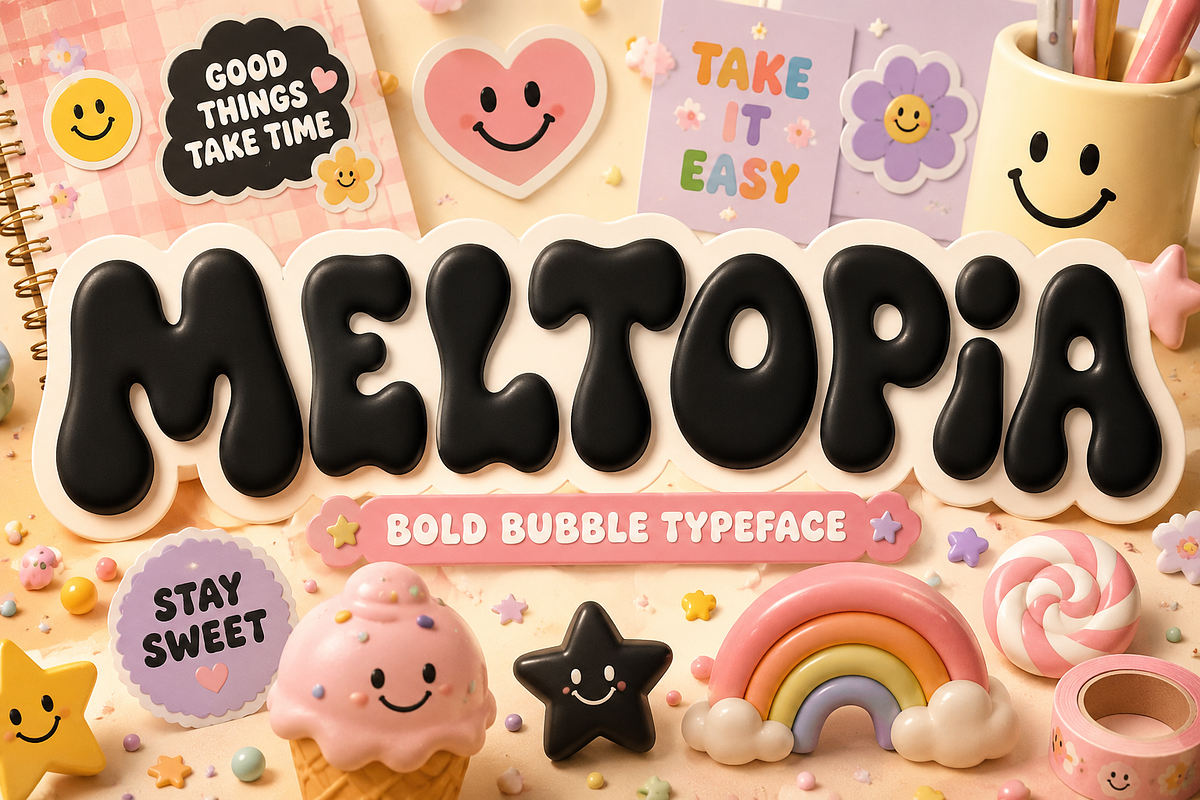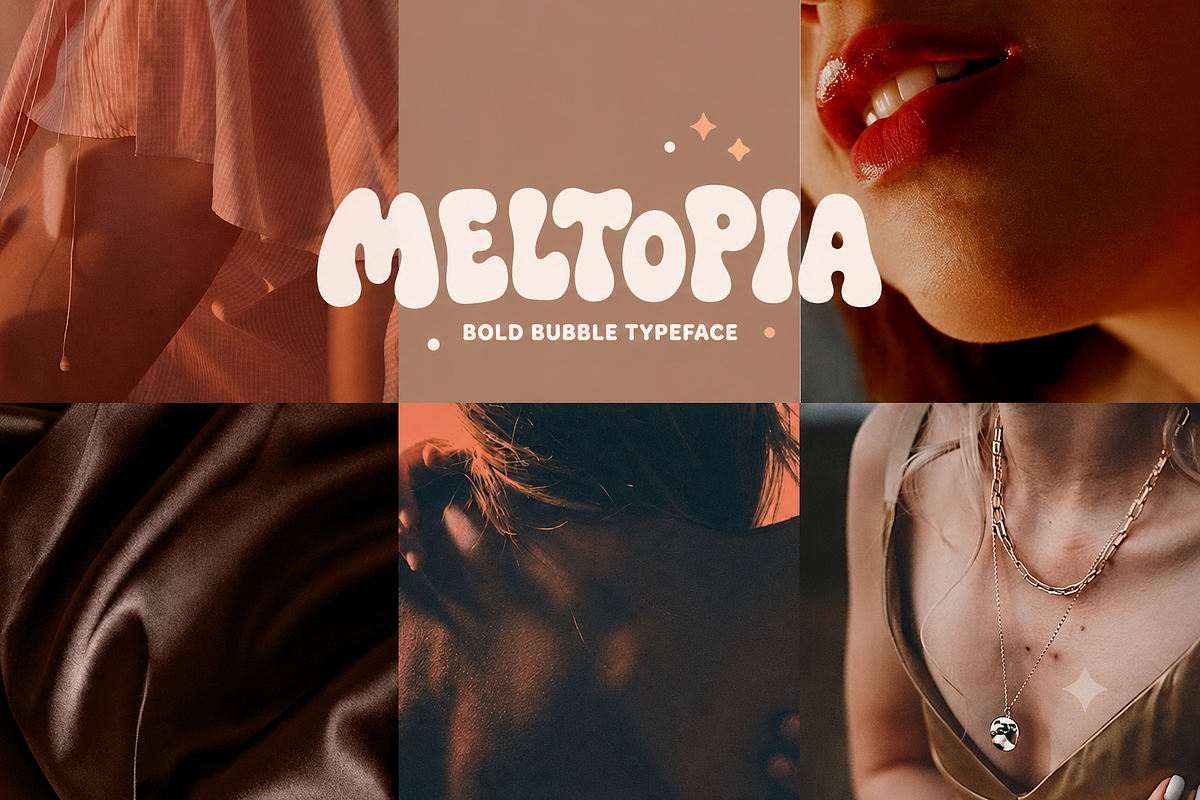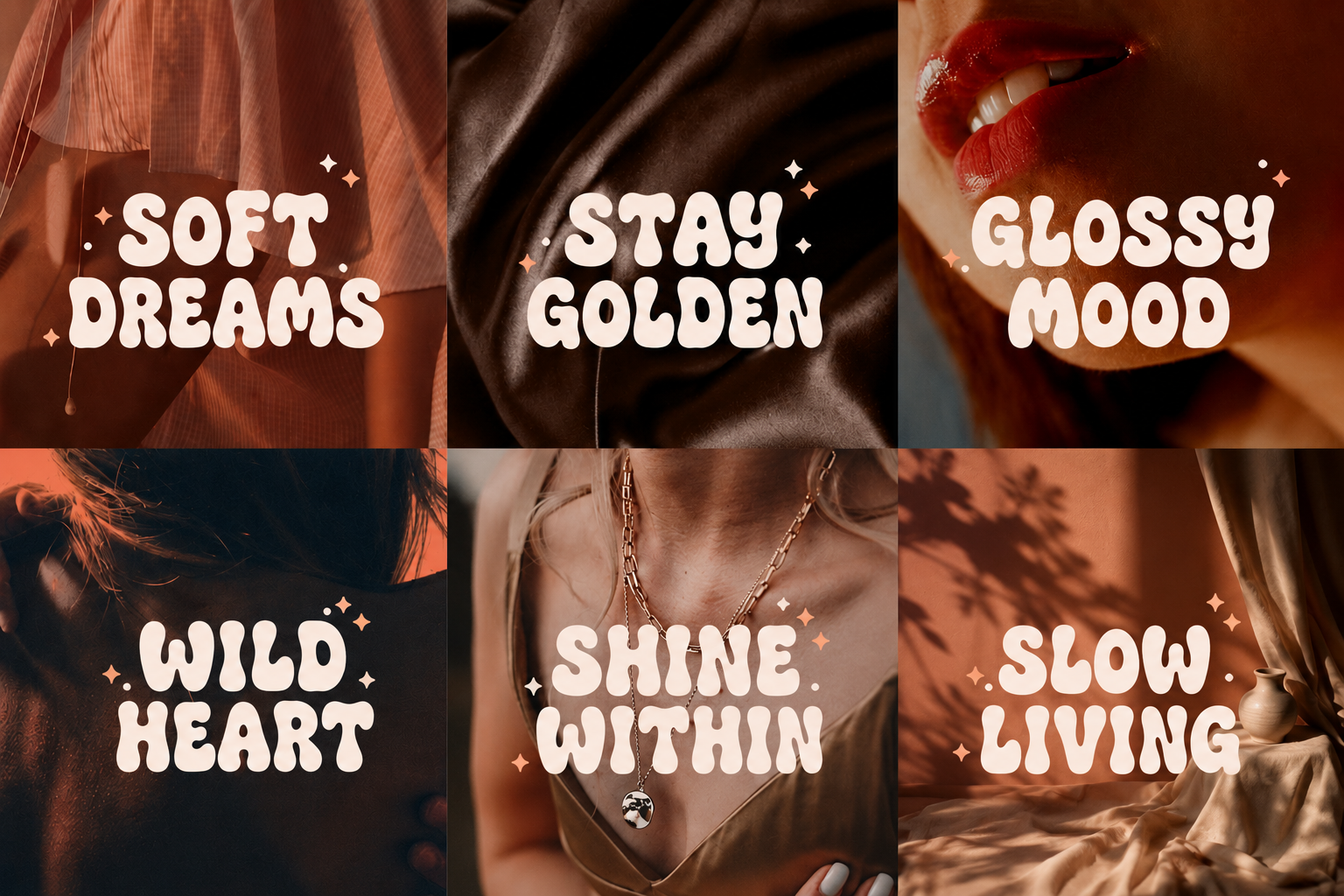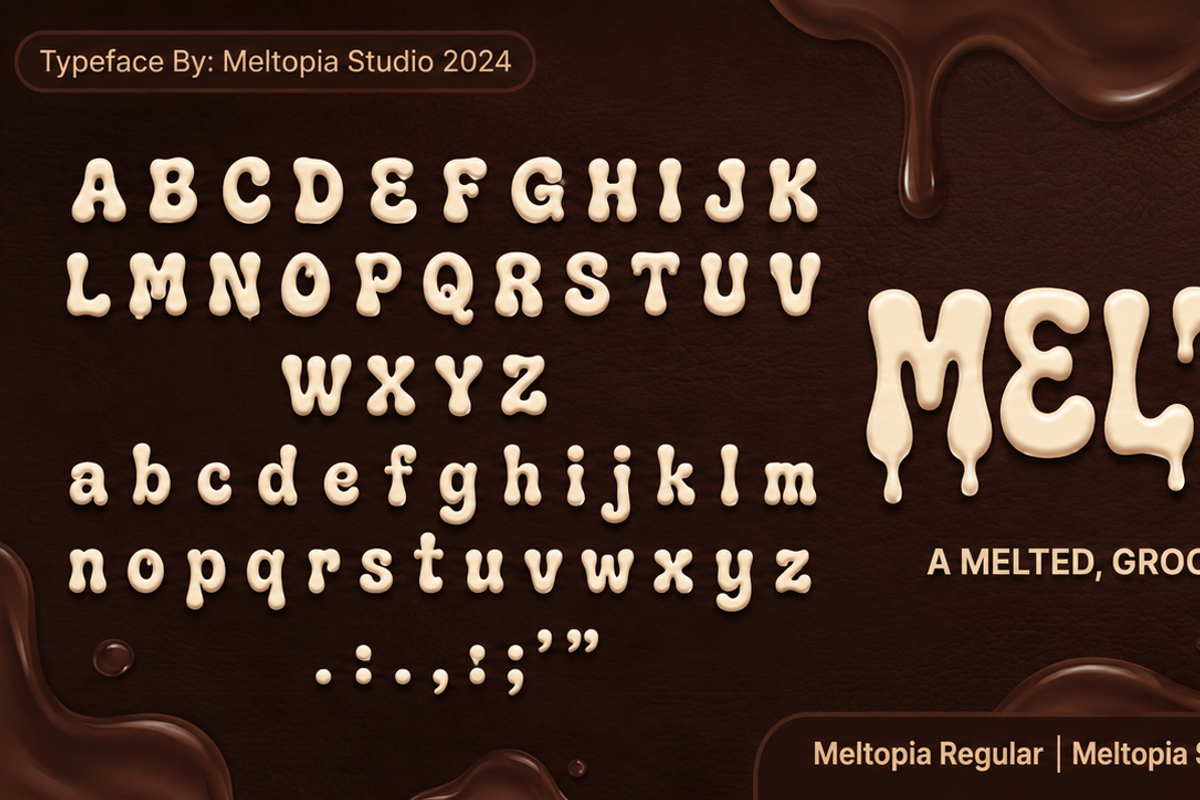
Meltopia Liquid Font for Branding
Meltopia – Groovy Liquid Font
Step back into the 70s with Meltopia, a bold, trippy, and psychedelic display typeface packed with retro flavor.
Designed with smooth, melting curves and a funky liquid aesthetic, Meltopia instantly adds a nostalgic and energetic feel to any design. It beautifully captures the essence of vintage rock posters, hippie culture, and modern Y2K liquid design trends.
Whether you're creating music festival flyers, retro streetwear designs, quirky product packaging, vinyl record covers, or standout social media content, Meltopia ensures your typography drips with style and creativity.
Retro Branding & Logos
Music Festival Posters
Vinyl Record Covers & Album Art
Streetwear & T-Shirt Designs
Funky Product Packaging (e.g., Chocolate, Beverages)
Psychedelic Art & Stickers
Social Media & YouTube Graphics
Halloween or "Slime" Themed Designs
Y2K Nostalgic Projects
Bring funky vibes and melting retro energy to your next project with Meltopia!